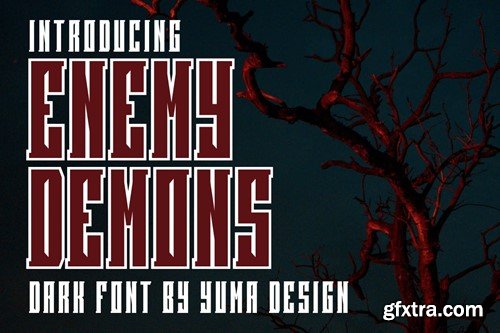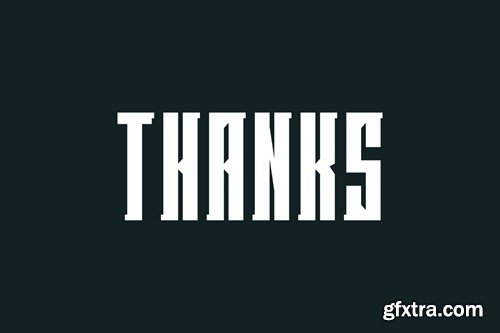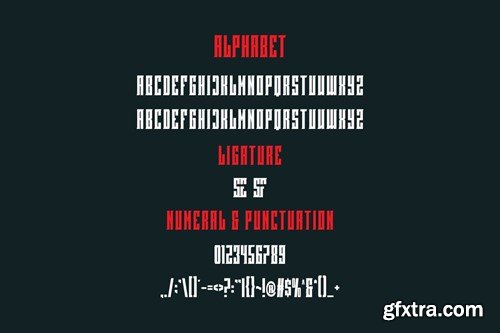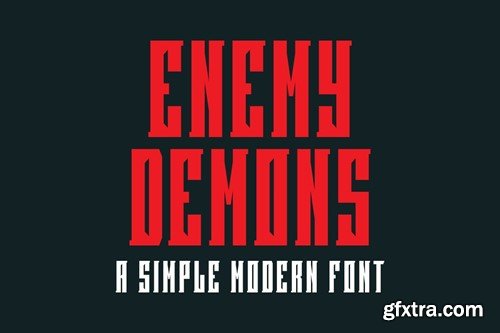
Enemy Demons Font 5TSUL3S
Enemy Demons Font
Introducing Enemy Demons Font. Enemy Demons is a modern and simple font, best used as a display for headings, logos, branding, magazines, product packaging and invitations. Enemy Demons come with clean lines and smooth curves give any project an extra touch of class.